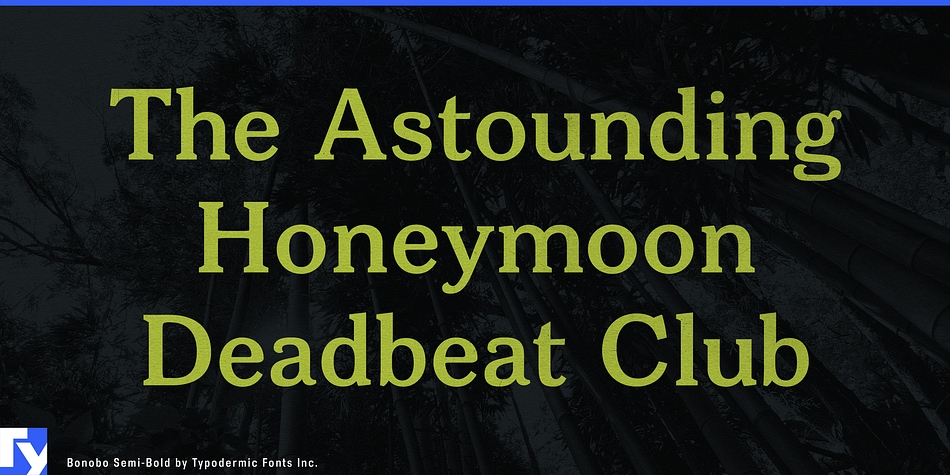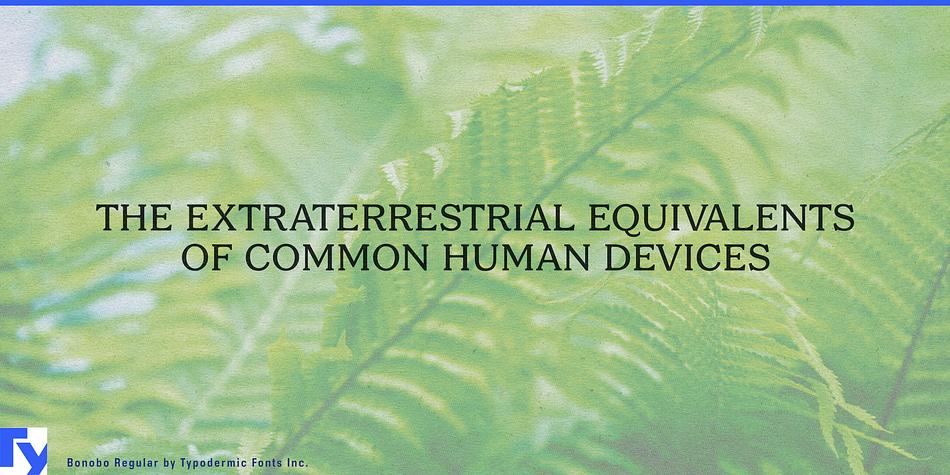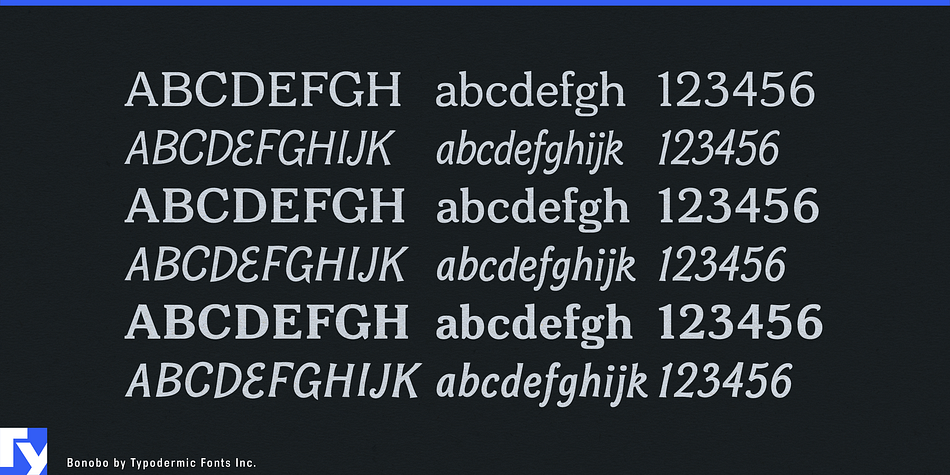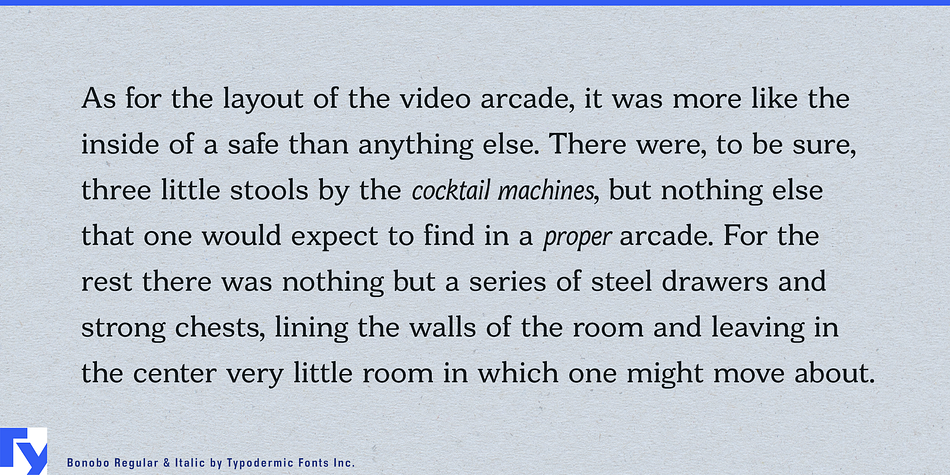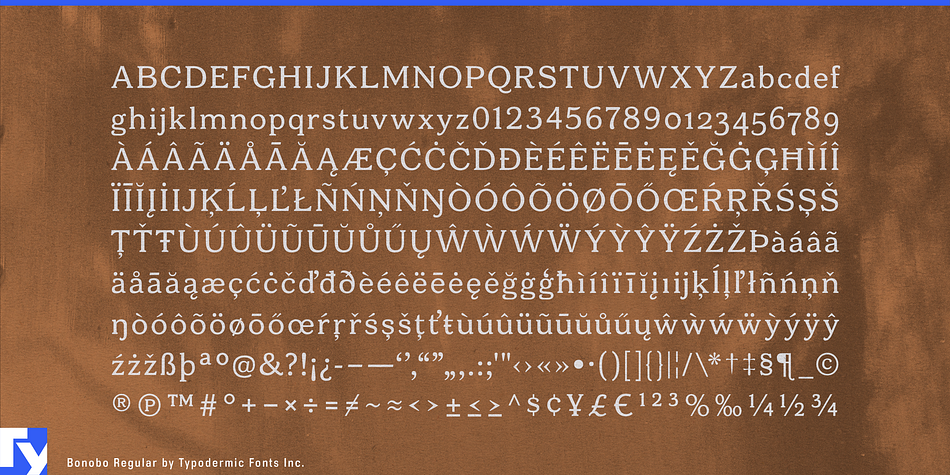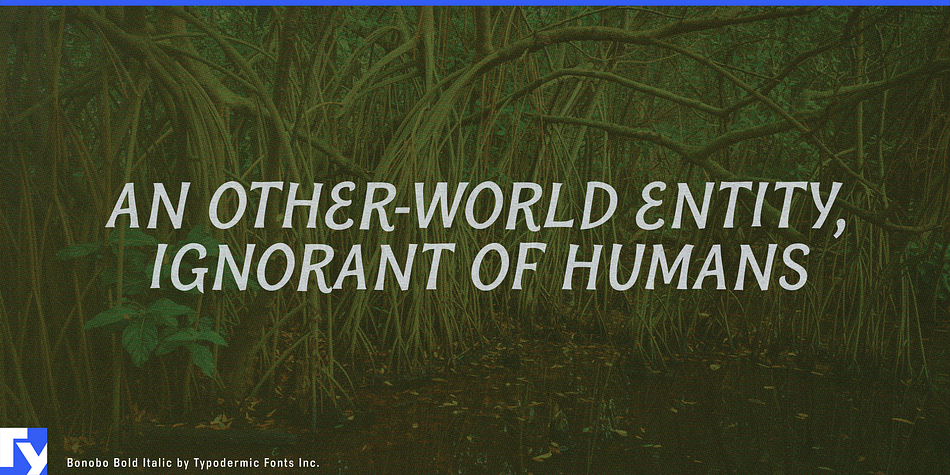
Bonobo is a casual-style transitional serif typeface. The robust uprights are adorned with blunt serifs and curls, while the italics are flared and laid back. Bonobo comes in Regular, Semibold, Bold, and Italic weights. Most Latin-based European writing systems are supported, including the following languages. Afaan Oromo, Afar, Afrikaans, Albanian, Alsatian, Aromanian, Aymara, Bashkir (Latin), Basque, Belarusian (Latin), Bemba, Bikol, Bosnian, Breton, Cape Verdean, Creole, Catalan, Cebuano, Chamorro, Chavacano, Chichewa, Crimean Tatar (Latin), Croatian, Czech, Danish, Dawan, Dholuo, Dutch, English, Estonian, Faroese, Fijian, Filipino, Finnish, French, Frisian, Friulian, Gagauz (Latin), Galician, Ganda, Genoese, German, Greenlandic, Guadeloupean Creole, Haitian Creole, Hawaiian, Hiligaynon, Hungarian, Icelandic, Ilocano, Indonesian, Irish, Italian, Jamaican, Kaqchikel, Karakalpak (Latin), Kashubian, Kikongo, Kinyarwanda, Kirundi, Kurdish (Latin), Latvian, Lithuanian, Lombard, Low Saxon, Luxembourgish, Maasai, Makhuwa, Malay, Maltese, Māori, Moldovan, Montenegrin, Ndebele, Neapolitan, Norwegian, Novial, Occitan, Ossetian (Latin), Papiamento, Piedmontese, Polish, Portuguese, Quechua, Rarotongan, Romanian, Romansh, Sami, Sango, Saramaccan, Sardinian, Scottish Gaelic, Serbian (Latin), Shona, Sicilian, Silesian, Slovak, Slovenian, Somali, Sorbian, Sotho, Spanish, Swahili, Swazi, Swedish, Tagalog, Tahitian, Tetum, Tongan, Tshiluba, Tsonga, Tswana, Tumbuka, Turkish, Turkmen (Latin), Tuvaluan, Uzbek (Latin), Venetian, Vepsian, Võro, Walloon, Waray-Waray, Wayuu, Welsh, Wolof, Xhosa, Yapese, Zapotec Zulu and Zuni.